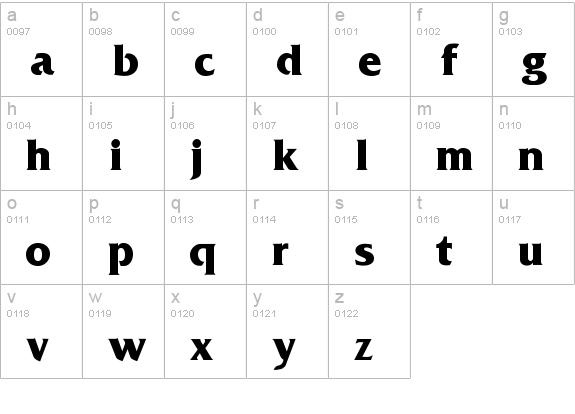
FrizQuadrataBold Font Details
FrizQuadrataBold is a bold and commanding font that exudes strength and confidence. Its sharp, angular lines give it a modern and dynamic appearance, making it perfect for headlines, titles, and other prominent text. The bold weight of this font ensures that your message will stand out and make a striking impact on readers. What sets FrizQuadrataBold apart is its versatility - it can be used in a variety of design projects, from posters and advertisements to logos and branding materials. Whether you're looking to make a bold statement or add a touch of sophistication to your designs, FrizQuadrataBold is the perfect choice. And the best part? FrizQuadrataBold is available for free download at FontsMarket.com. This means you can easily access this powerful font and start using it in your projects right away. Don't miss out on this opportunity to enhance your designs with FrizQuadrataBold - download it today and unleash its boldness and impact in your work.